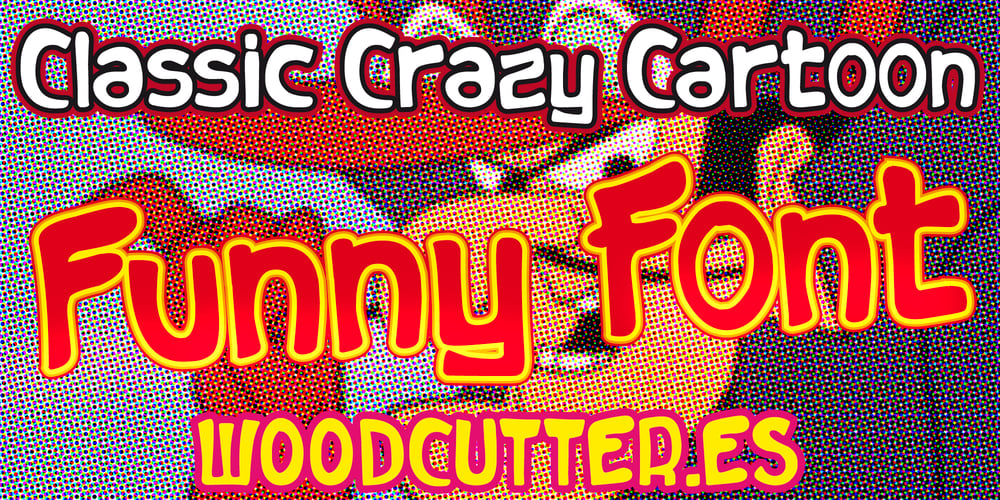
Classic Crazy Cartoons
Classic Crazy Cartoons font
Classic Crazy Cartoons Font Family was designed by Jordi Manero and published by Woodcutter. Classic Crazy Cartoons contains 1 styles and family package options. “Classic Crazy Cartoons” is a fancy-style font that captures the essence of classic cartoons. With playful uppercase and lowercase letters, accented and varying in size, this typeface creates a joyful, controlled chaos. Ideal for projects aiming for a whimsical and carefree look, “Classic Crazy Cartoons” adds a touch of humor and vitality to any design. Perfect for titles, posters, and children’s graphic materials, this font encapsulates the energy and dynamism of retro animations, providing a nostalgic and entertaining feel.